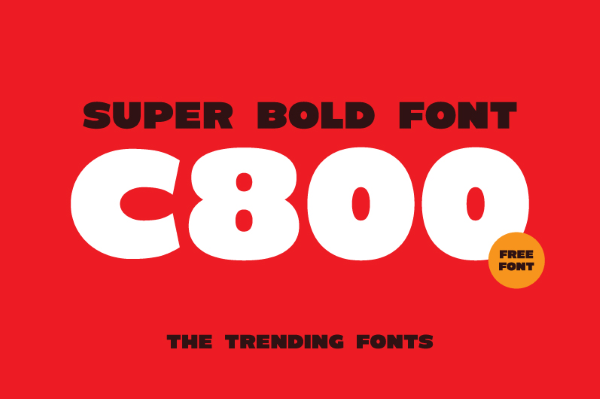
C800 Font
C800 by The Trending Fonts is a super-bold, all-caps sans serif display typeface that gets straight to the point. Its thick, rounded letterforms command immediate attention — friendly enough to feel approachable, heavy enough to anchor any headline or title treatment with authority. Whether applied to posters, flyers, gaming graphics, t-shirts, or banners, C800 delivers maximum visual weight with minimal fuss. Released into the public domain, it is 100% free for both personal and commercial use without restriction.